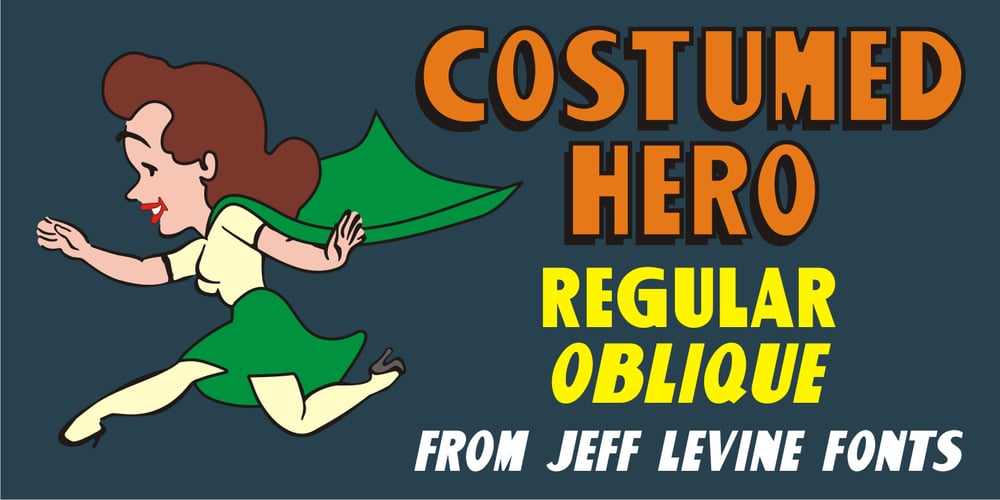
Costumed Hero JNL Font Family was designed by Jeff Levine and published by Jeff Levine. Costumed Hero JNL contains 2 styles and family package options. Comic books are filled with pages full of the daring adventures of crime fighters with colorful costumes, amazing abilities and wondrous powers. They have enthralled kids of all ages since the 1930s. Costumed Hero JNL emulates both the hand lettered cover titles of those vintage comics as well as the title credits from a 1960s television show based on one of these characters. With its non-conforming letter shapes and varying widths, the lighthearted look of classic comic title art can be yours. The font is available in both regular and oblique versions.